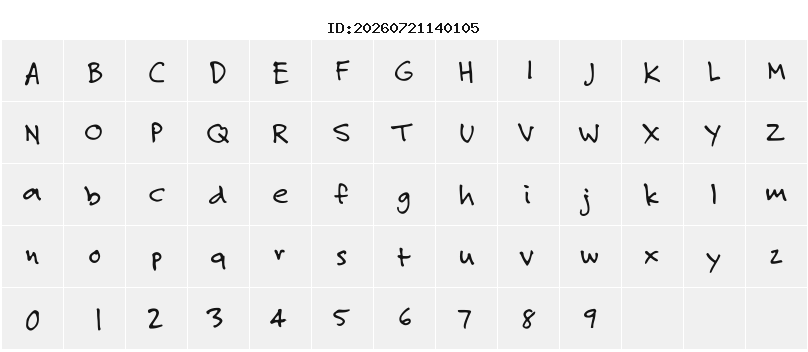
Felt Tip Roman Preview
• Font Name: Felt Tip Roman
• Full Font Name: Felt Tip Roman
About Felt Tip Roman.ttf
Felt Tip Roman.ttf is a modern, elegant sans-serif font designed for ultimate readability and visual harmony. Perfect for branding, headlines, web design, and print materials.